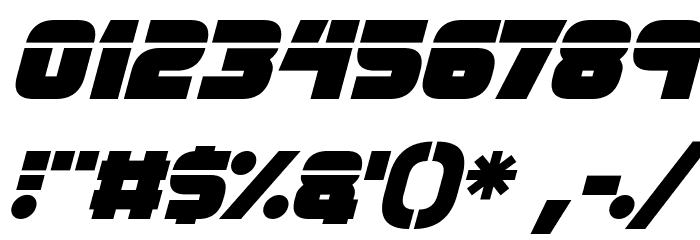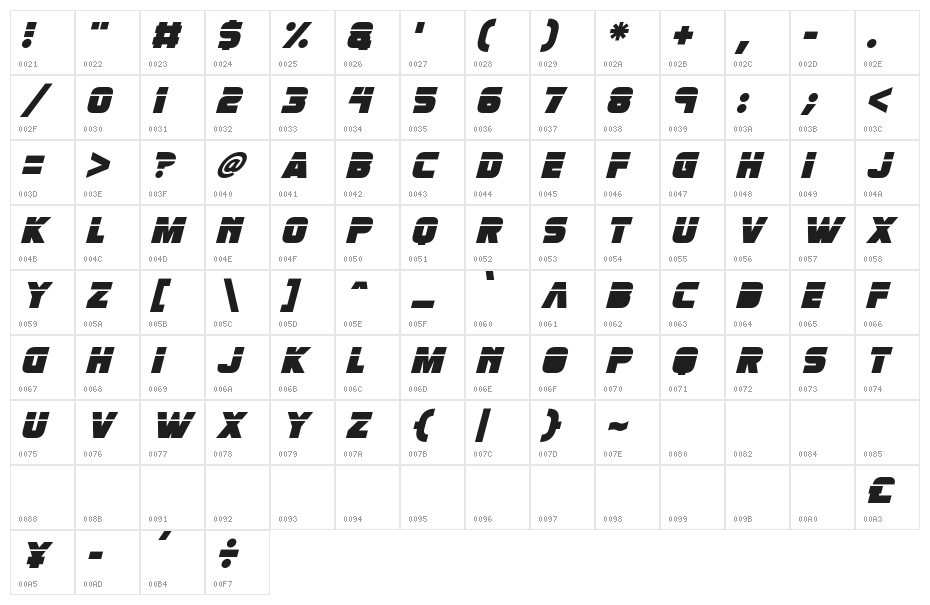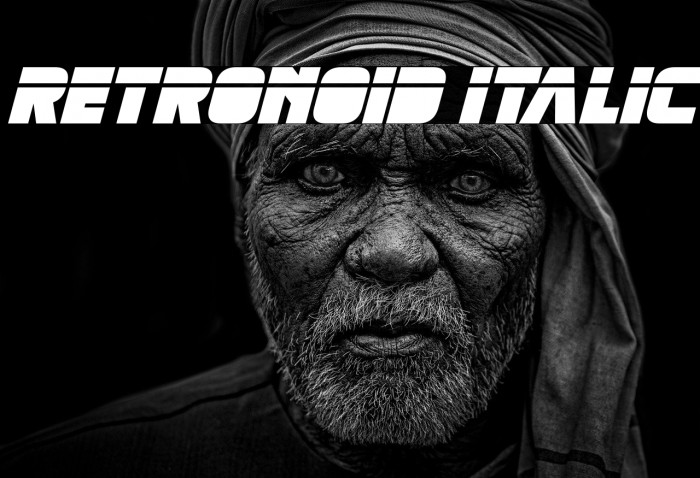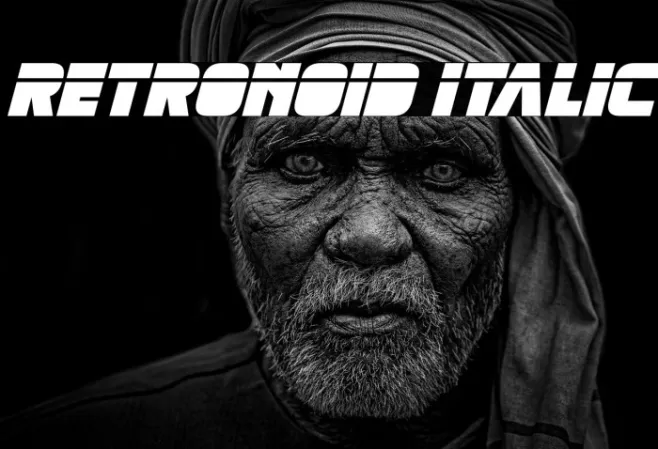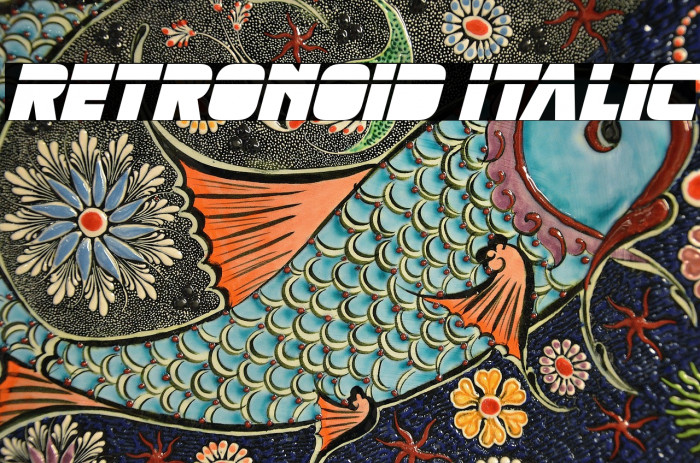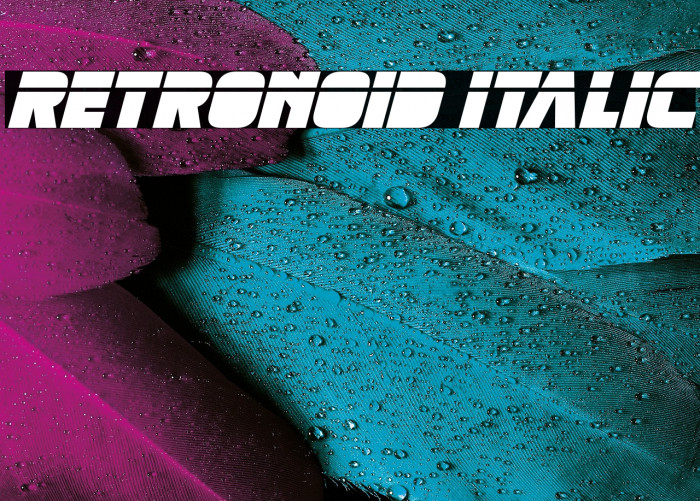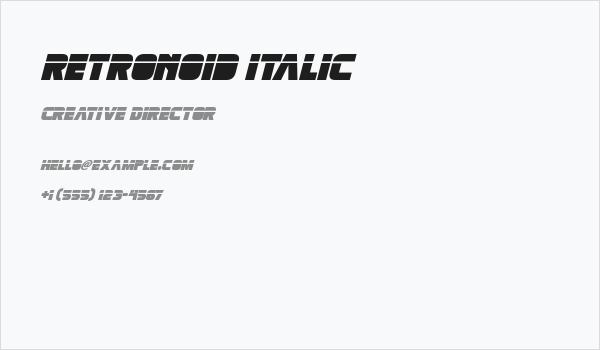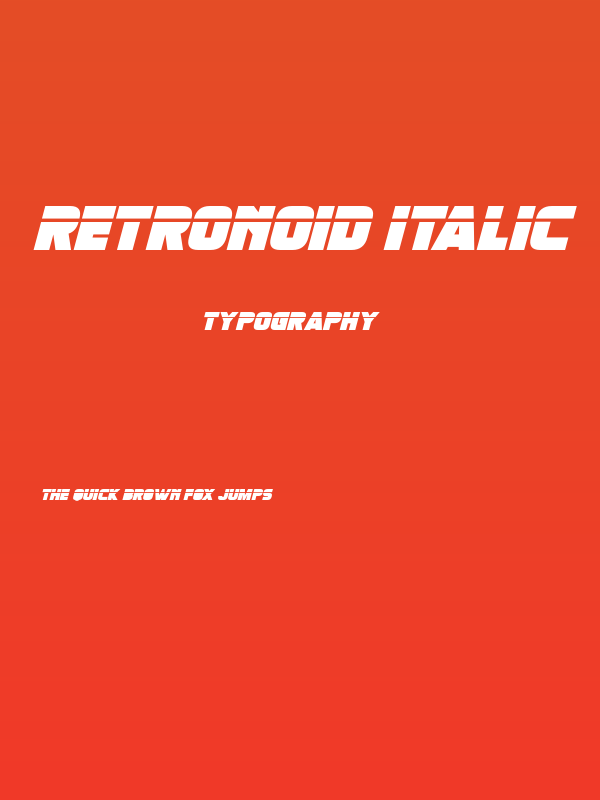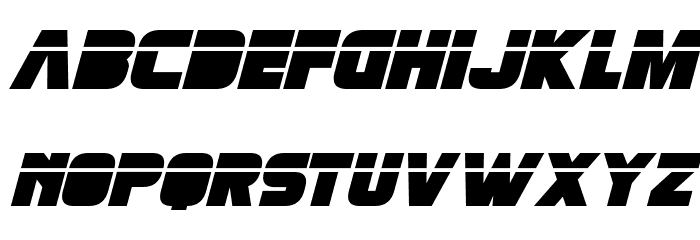
Retronoid Italic Font
Retronoid Italic Description
This font features a bold, italicized style with a futuristic and dynamic appearance. The characters are designed with sharp angles and a strong forward slant, giving a sense of motion and speed. The uppercase and lowercase letters maintain a consistent geometric form, while the numbers and special characters complement the overall aesthetic. The thick strokes and minimal contrast between thick and thin lines contribute to its bold presence, making it suitable for attention-grabbing designs.
| Proposed Projects | Ideal for sci-fi themed projects, video game titles, tech branding, and dynamic posters. |